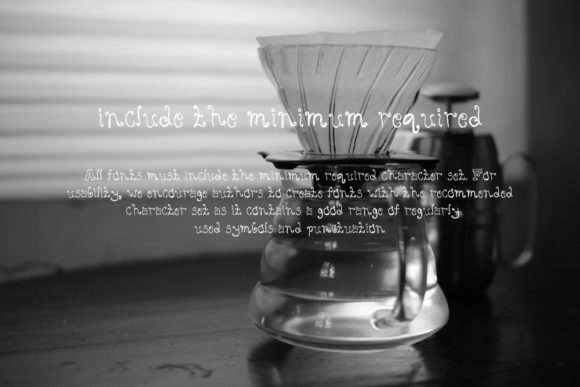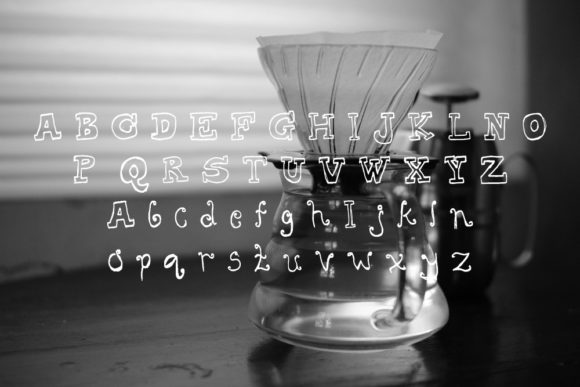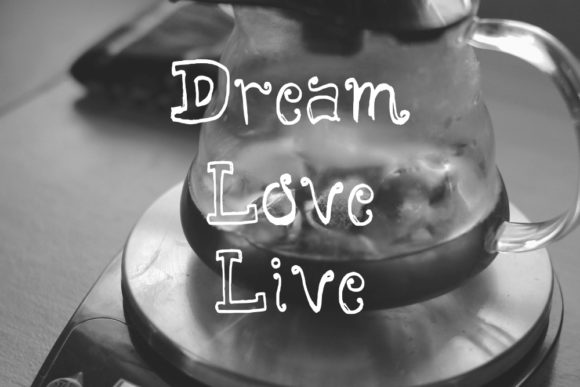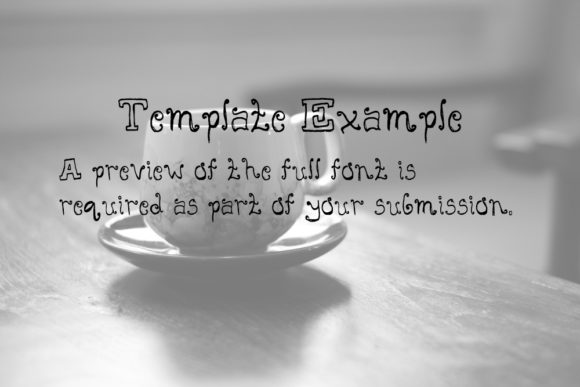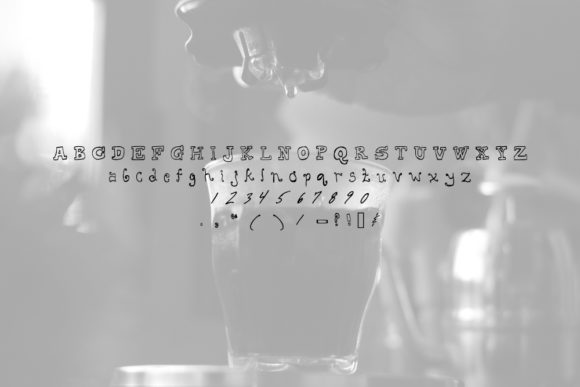
Unleash Your Inner Child with Aradyan Dixabey Font
Do you remember the thrill of picking out a new set of crayons or markers, only to unleash a world of vibrant colors and imagination on a blank page? As designers, we’re always on the lookout for ways to tap into that same sense of creativity and fun in our work. That’s where the Aradyan Dixabey Font comes in – a playful, casual display font that’s perfect for adding a touch of whimsy to your designs.
Whether you’re working on a kids’ project, a school assignment, or just need a font to brighten up your day, the Aradyan Dixabey Font is a valuable addition to your toolkit. Its childlike playfulness makes it an instant hit with designers looking to add a touch of fun to their work. With its versatility and ease of use, you’ll be creating engaging designs in no time.
Aradyan Dixabey Font Key Features
- Font Family: Aradyan Dixabey is a unique, hand-drawn font with a mix of elegant and modern elements.
- Unique Characteristics: Features intricate details, subtle texture, and a mix of serif and sans-serif elements, making it ideal for creative projects, such as book covers, magazine layouts, and advertising materials.
Aradyan Dixabey Font Review
Initially, I was drawn to the unique and quirky style of the Aradyan Dixabey Font. It’s a great choice for anyone looking for a bold, eye-catching font to add some personality to their designs. ✨ I love how the font combines thick and thin lines to create a dynamic, hand-drawn look.
Some of the font’s best features include:
- ✨ Excellent for headings and titles due to its large x-height and high visibility.
- ✨ Highly customizable, allowing for a wide range of color options and styles.
- ✨ Unique and distinctive, making it stand out in crowded design spaces.
However, I do have some reservations about the font’s limitations:
- ⚠️ The font’s irregularity can sometimes make it difficult to read, especially at smaller sizes.
- ⚠️ Limited support for non-English languages may make it less suitable for global branding.
Overall, the Aradyan Dixabey Font is a great choice for designers who want to add a touch of personality to their work. While it may not be the most practical font for everyday use, its unique style and high customizability make it a great option for creative projects or branding that requires a bold statement.
For the best results, use the Aradyan Dixabey Font in conjunction with bold or italic styles to create visual interest.
Experiment with different font sizes and colors to find the perfect balance for your design.
The Aradyan Dixabey Font is perfect for:
1. Creating eye-catching headlines and titles.
2. Adding a touch of elegance to invitations and event materials.
3. Designing unique and creative branding materials.
Alternatives to Aradyan Dixabey Font
The Great Vibes Font is a modern, elegant script font that is perfect for creating a sense of luxury and sophistication. It is ideal for use in branding, advertising, and packaging design. Great Vibes Font has a similar flair to Aradyan Dixabey Font but is more refined and polished.
Comparison: While Aradyan Dixabey Font has a more playful and quirky feel, Great Vibes Font is more elegant and sophisticated. Great Vibes Font is a better choice for formal designs, while Aradyan Dixabey Font is better suited for casual and creative projects.
The Carolyna Pro Font is a stylish and sophisticated script font that is perfect for creating a sense of elegance and refinement. It is ideal for use in fashion, beauty, and luxury branding. Carolyna Pro Font has a similar flowing feel to Aradyan Dixabey Font but is more polished and refined.
Comparison: While Aradyan Dixabey Font has a more playful and whimsical feel, Carolyna Pro Font is more sophisticated and elegant. Carolyna Pro Font is a better choice for formal designs, while Aradyan Dixabey Font is better suited for casual and creative projects.